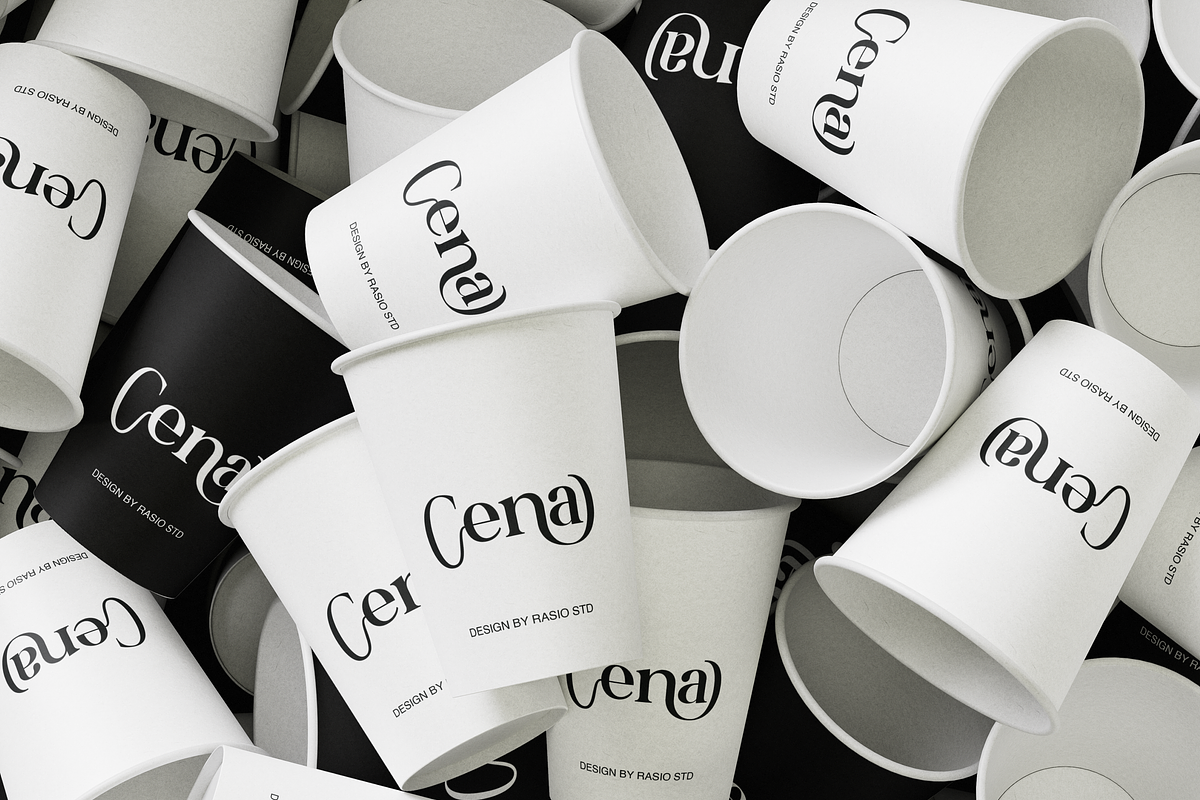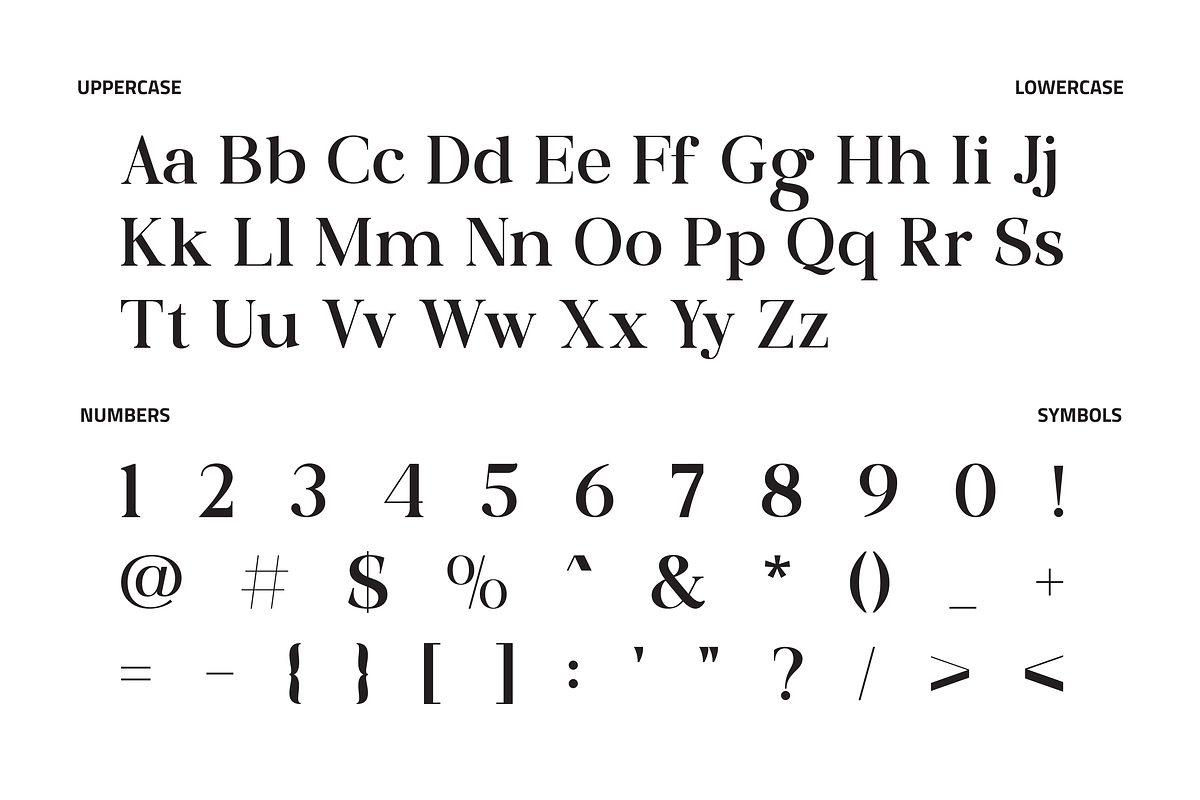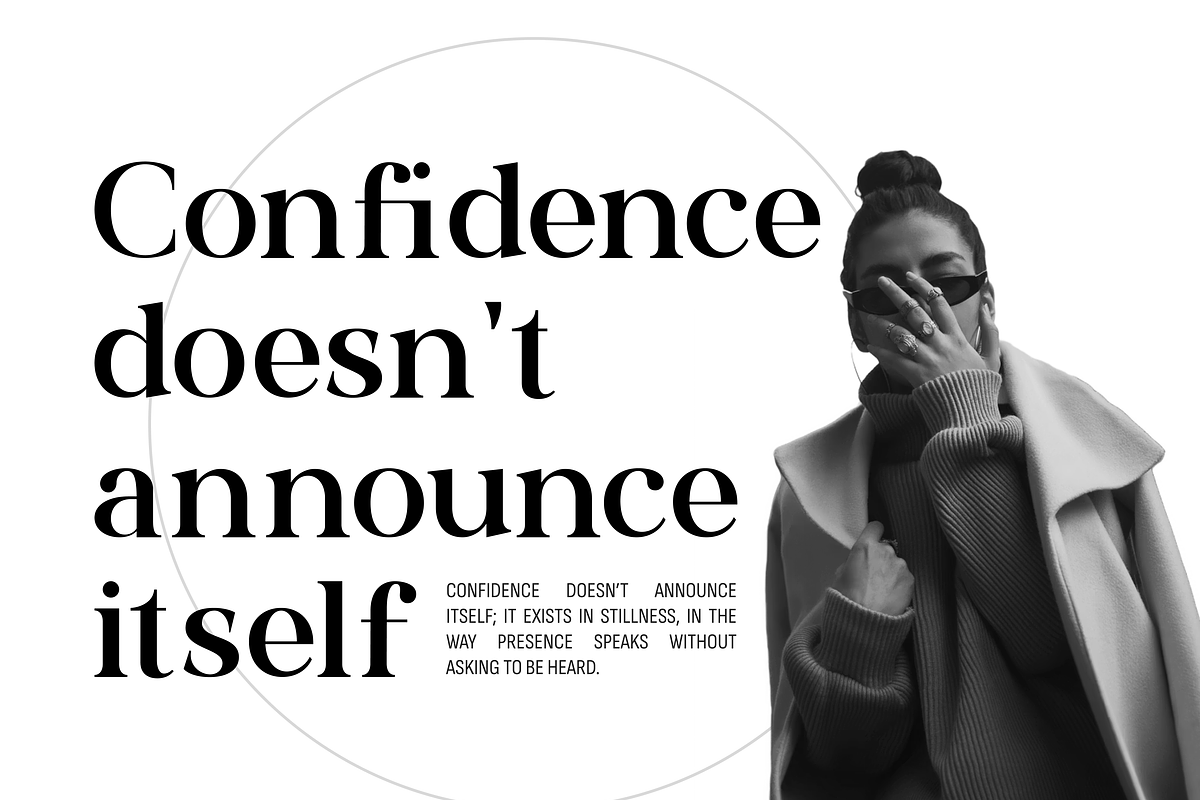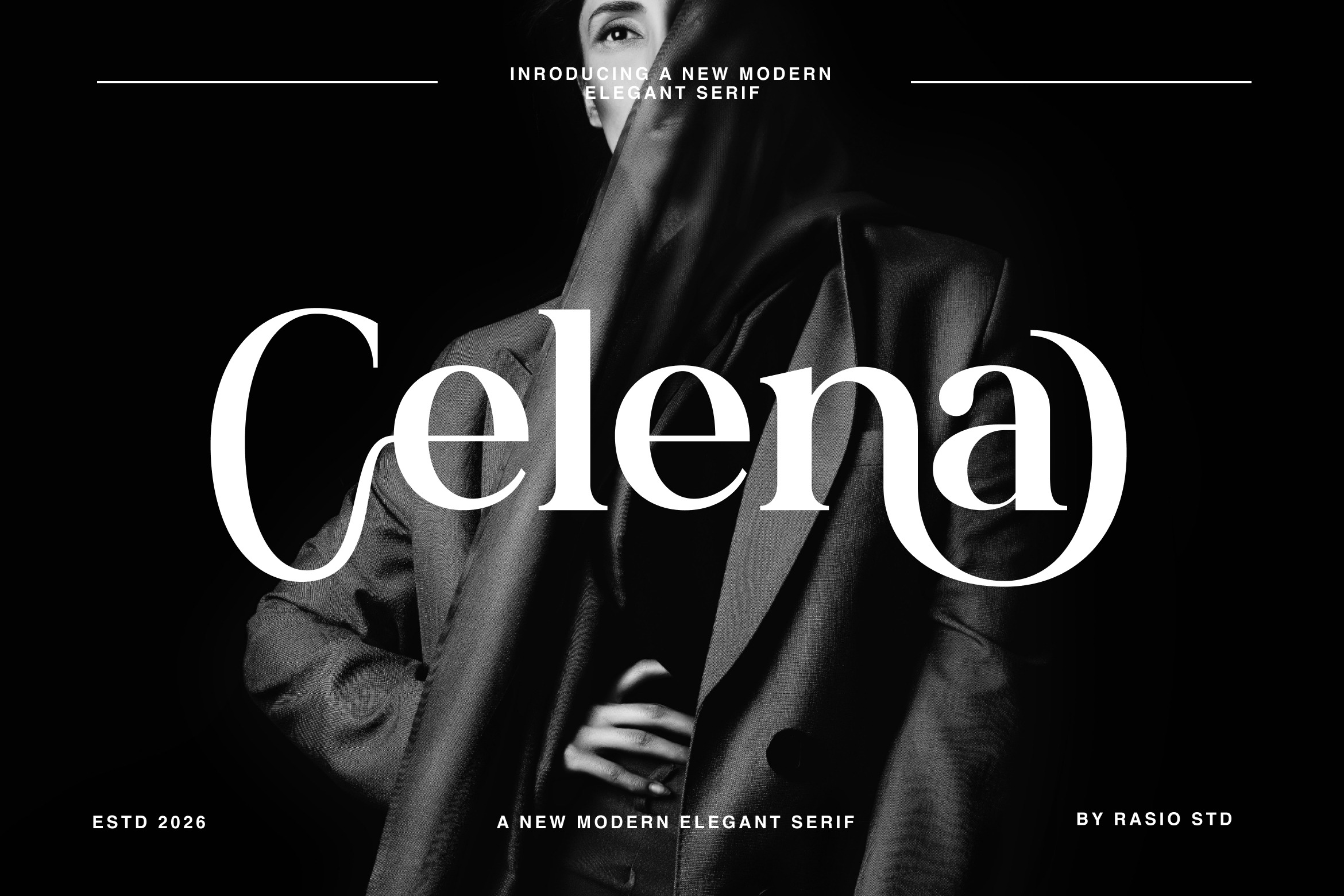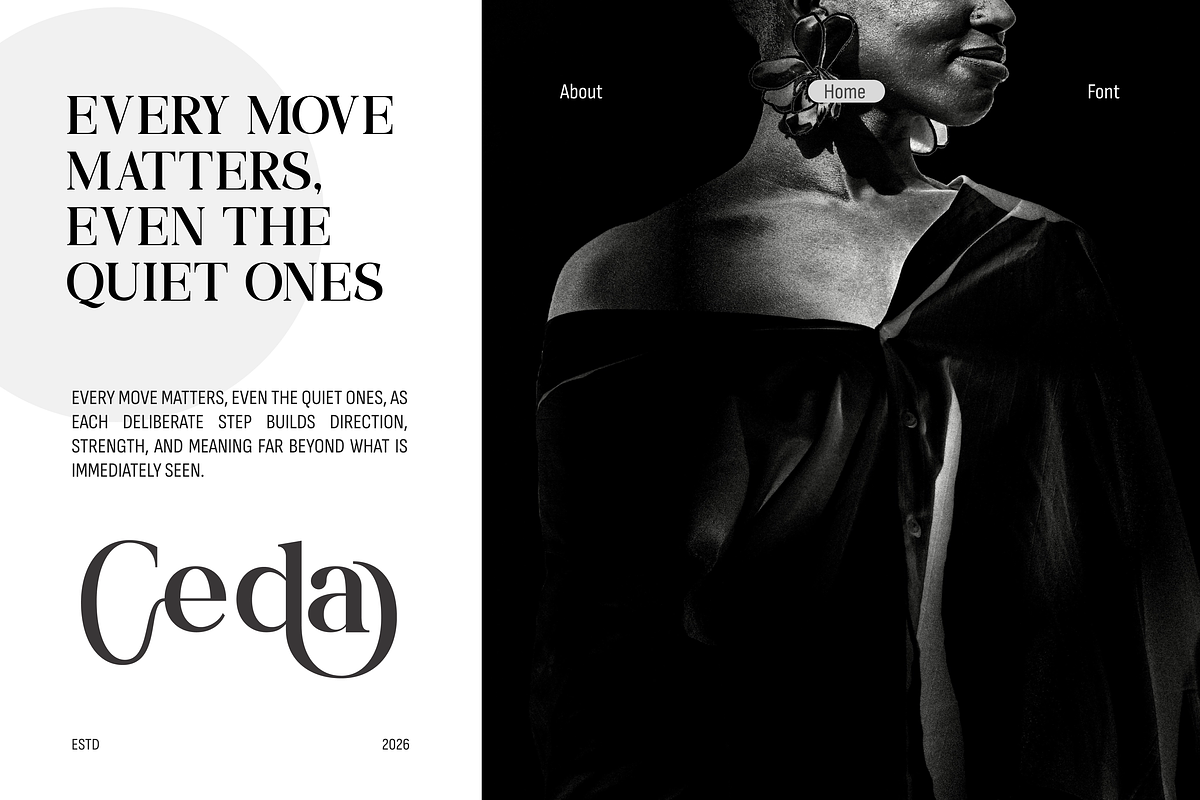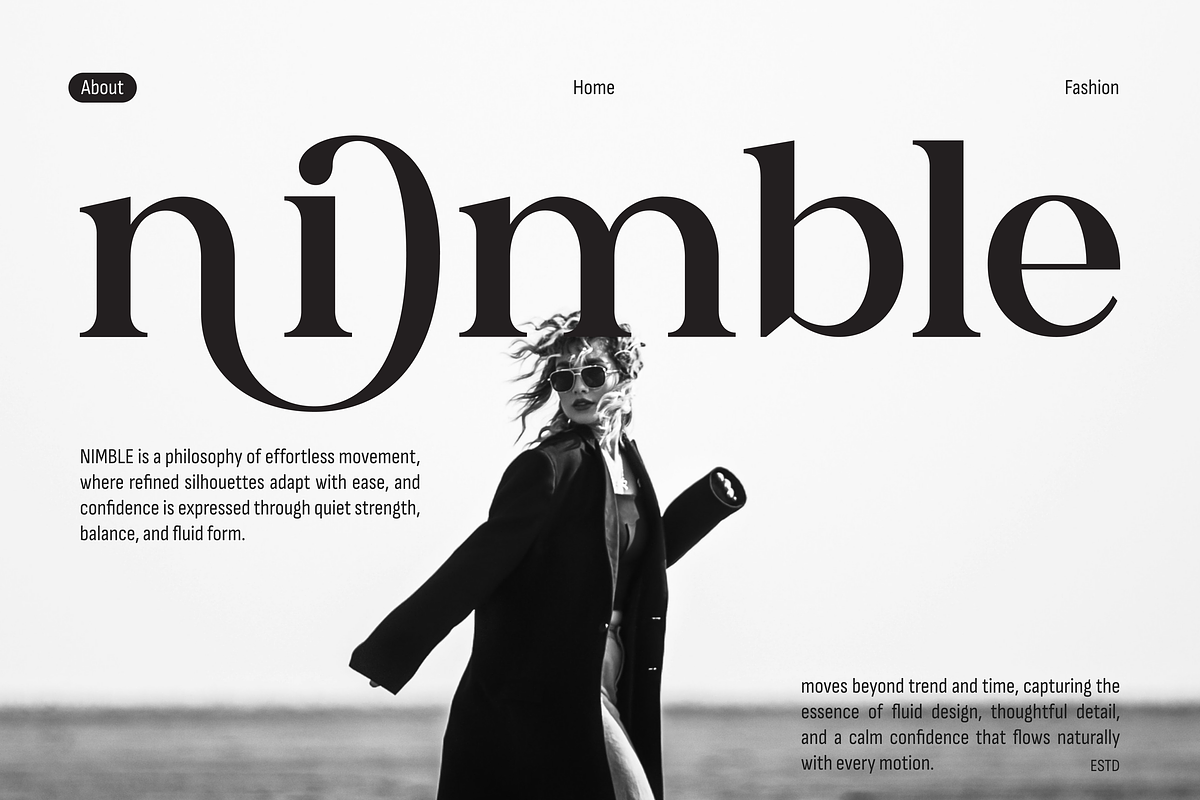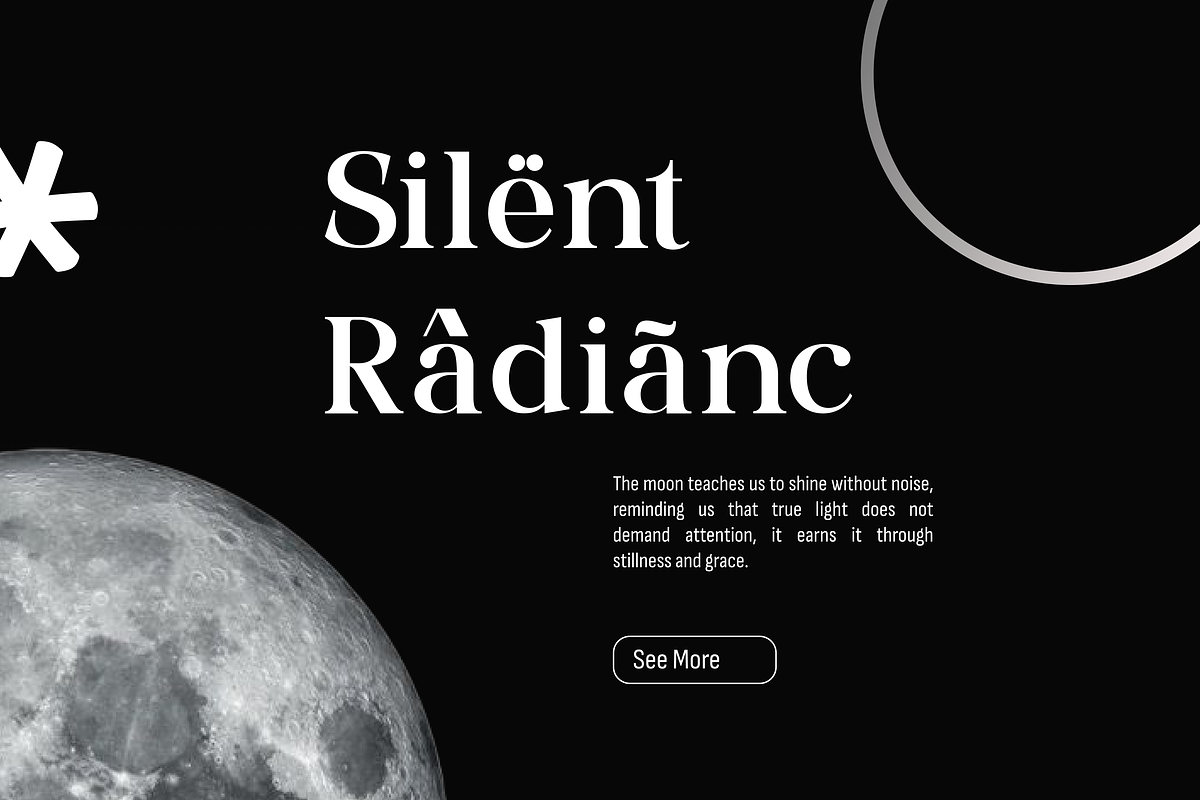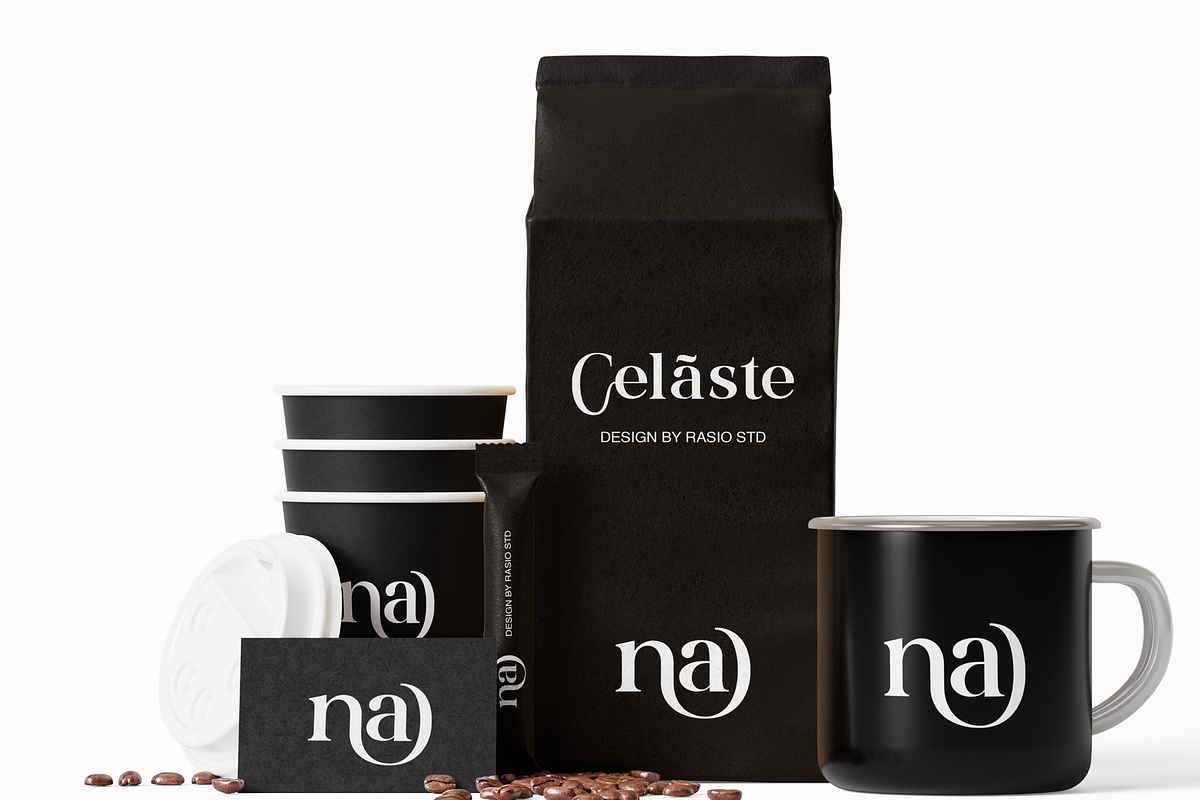
Celena Modern Elegant Serif Font
Celena is a refined modern elegant serif typeface that blends classic sophistication with contemporary minimalism. Designed with high-contrast strokes, graceful curves, and distinctive serif details, Celena delivers a luxurious and timeless visual presence. Its sculpted letterforms feature smooth transitions, elegant terminals, and balanced proportions that enhance both display and editorial applications.
Celena is highly relevant for luxury fashion brands, beauty campaigns, editorial magazines, high-end packaging, boutique logos, personal branding, wedding stationery, and refined social media visuals. Its elegant structure and modern refinement make it perfect for projects that require sophistication, timeless appeal, and strong visual identity.
- Refined modern serif with elegant high-contrast strokes
- Graceful curves and sculpted letterforms for a timeless feel
- Distinctive, sharp serifs balanced with smooth transitions
- Clean spacing for strong headlines and polished layouts
- Blends classic sophistication with contemporary minimalism
- Luxury brand identity systems with a refined and timeless tone
- Fashion editorials, magazines, and high-end lookbooks
- Premium packaging and beauty product labels
- Elegant website headers and sophisticated landing pages
- Wedding stationery, boutique logos, and personal branding